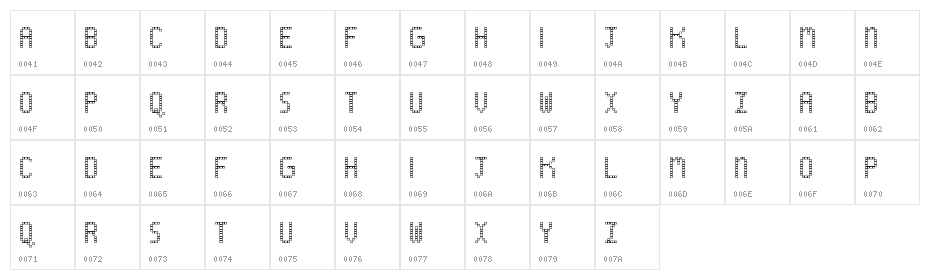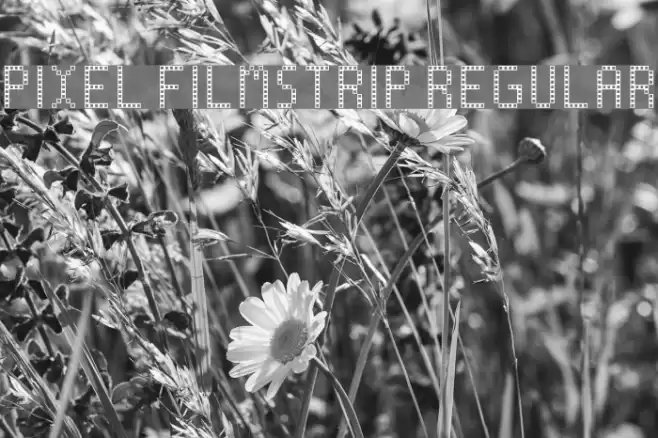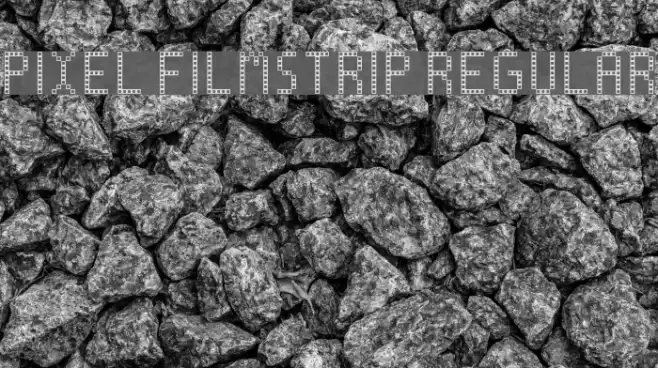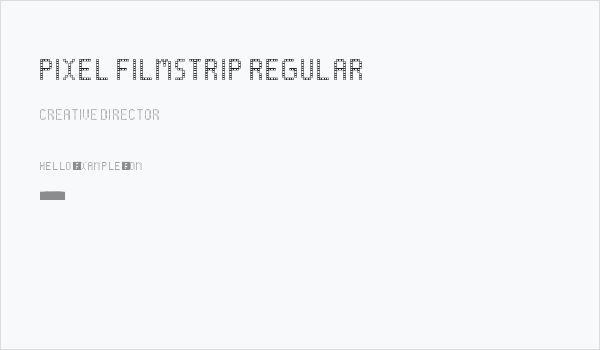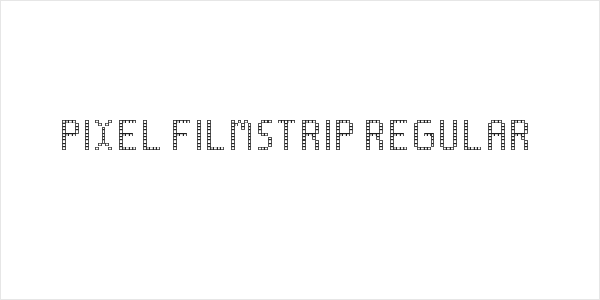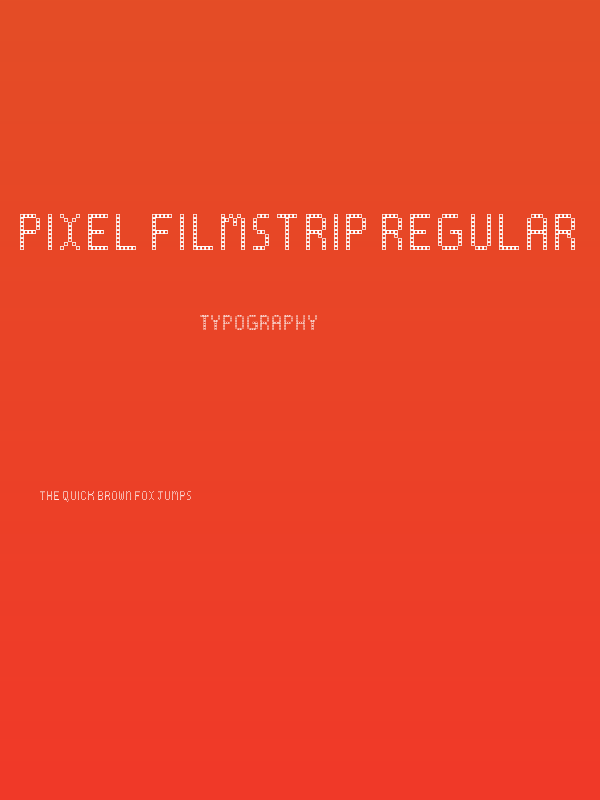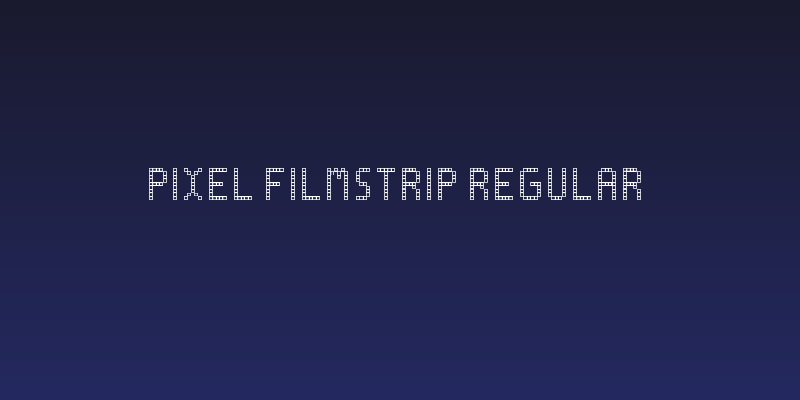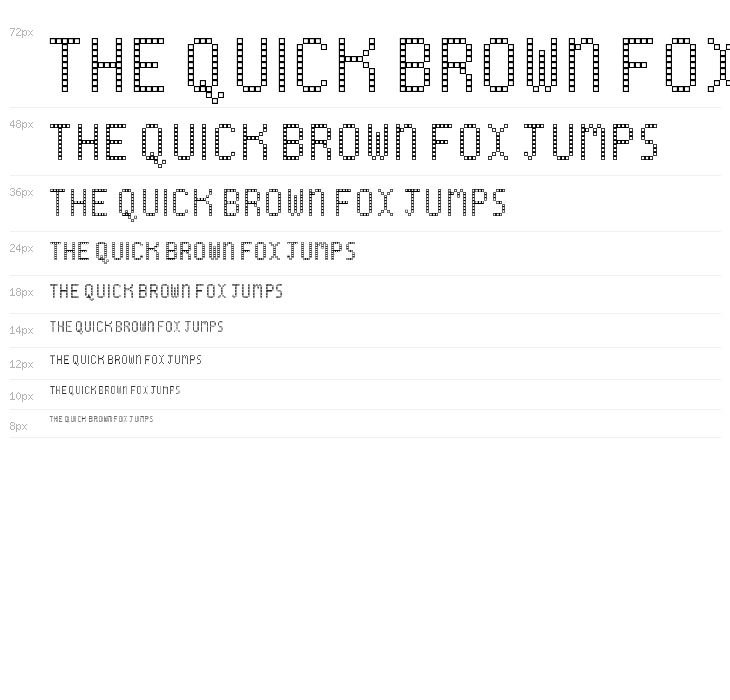
Pixel Filmstrip Regular Font
Pixel Filmstrip Regular Description
This font features a unique design that mimics the appearance of a filmstrip, with each character composed of small square blocks that resemble film perforations. The characters are evenly spaced and have a consistent height, creating a uniform and structured look. The font is highly decorative, capturing a retro, cinematic feel that is both playful and nostalgic. Its pixelated style adds a digital, vintage touch, making it ideal for projects that require a distinct and eye-catching typeface. The uppercase and lowercase letters maintain the same design elements, ensuring cohesion across different text cases. The numbers and special characters follow the same stylistic approach, providing a complete set for diverse typographic needs.